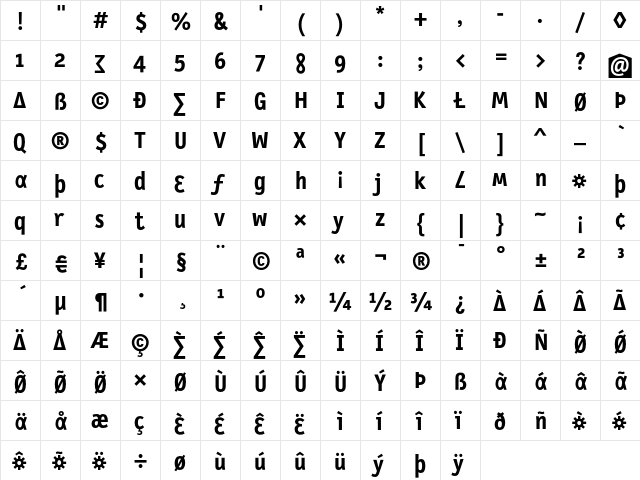
LetterGothicSlangT Bold Font Preview
LetterGothicSlangT Bold
Design Context for LetterGothicSlangT Typeface
LetterGothicSlangT has the quiet confidence of well-executed sans-serif typography: versatile, unobtrusive, and dependable at any size. The heavy weight commands attention and anchors typographic hierarchies.
Well-suited to navigation labels, product packaging, and anywhere legibility at scale is essential.
Font Pairing: Use LetterGothicSlangT for headlines alongside a lighter-weight sans or serif for body copy to establish clear visual hierarchy.
Pro Tip: Use LetterGothicSlangT for UI labels, navigation, and short-form body copy where clean legibility is the priority.